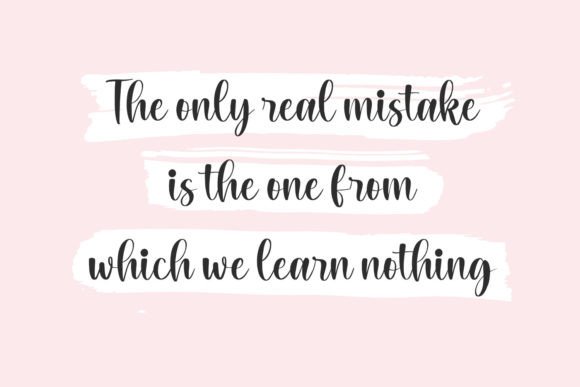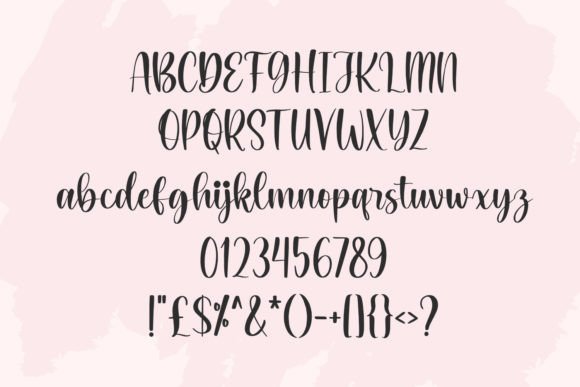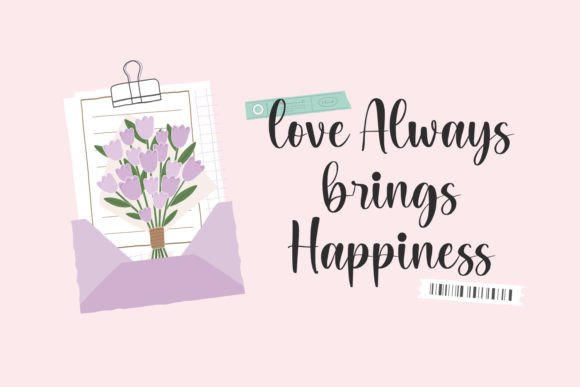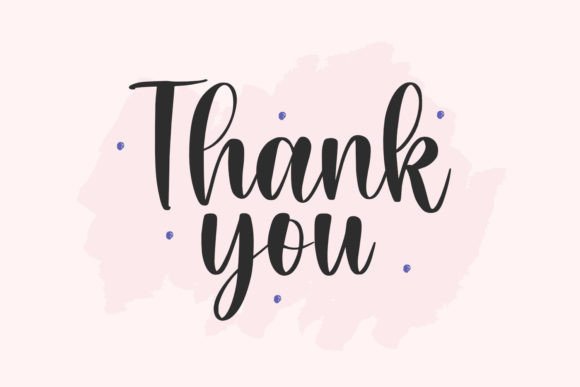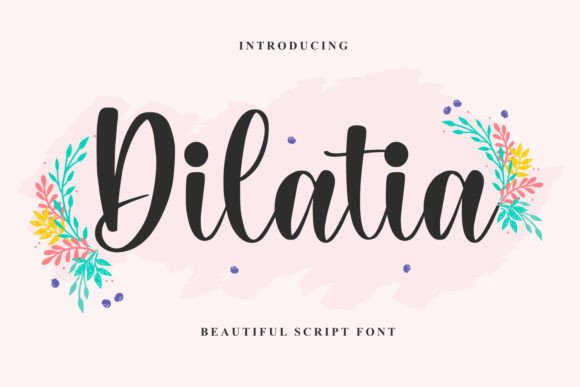
Dilatia Font: Elevate Your Design with Elegance and Sophistication
In the world of typography, fonts play a crucial role in conveying the tone and personality of a brand. For designers and crafters looking for a script that exudes elegance and sophistication, Dilatia Script is an excellent choice. This beautiful font is perfect for marketplace branding or advertising campaigns, thanks to its flowing and dynamic letterforms that create a sense of movement and refinement.
The Characteristics of Dilatia Script
Dilatia Script boasts a modern and stylish feel, making it an excellent addition to any design project. Its clean lines and rounded edges give it a unique and contemporary look that sets it apart from other fonts. The uppercase letters are bold and eye-catching, making them perfect for headings and titles, while the lowercase letters are graceful and delicate, ideal for body text.
Legibility and Versatility
One of the standout features of Dilatia Script is its high level of legibility. Even in smaller sizes, the font remains easy to read, making it a versatile choice for a wide range of design applications. Whether you’re working on a logo, brochure, or website, Dilatia Script is a reliable choice that will ensure your message is conveyed clearly and effectively.
Perfect for Marketplace Branding and Advertising
Marketplace branding and advertising require a font that is not only visually appealing but also communicates a sense of sophistication and elegance. Dilatia Script ticks all the boxes, making it an excellent choice for designers and crafters looking to create a professional and polished look. Its flowing letterforms and dynamic feel make it perfect for capturing the attention of potential customers and setting your brand apart from the competition.
Why Choose Dilatia Script?
So, why should you choose Dilatia Script for your design project? Here are just a few reasons:
- Elegance and sophistication: Dilatia Script exudes refinement and poise, making it perfect for high-end branding and advertising campaigns.
- Modern and stylish feel: The font’s clean lines and rounded edges give it a contemporary look that will appeal to designers and crafters.
- High legibility: Dilatia Script remains easy to read even in smaller sizes, making it a versatile choice for a wide range of design applications.
- Bold and eye-catching uppercase letters: The uppercase letters are perfect for headings and titles, adding a touch of drama and flair to your design.
- Graceful and delicate lowercase letters: The lowercase letters are ideal for body text, providing a smooth and flowing feel that is easy on the eyes.
Tips for Using Dilatia Script
To get the most out of Dilatia Script, here are a few tips to keep in mind:
- Use it for headlines and titles: The bold and eye-catching uppercase letters make Dilatia Script perfect for headlines and titles.
- Pair it with a sans-serif font: Pairing Dilatia Script with a sans-serif font can create a striking contrast that adds visual interest to your design.
- Experiment with different sizes: Dilatia Script remains legible even in smaller sizes, so don’t be afraid to experiment with different sizes to create visual hierarchy.
In conclusion, Dilatia Script is a beautiful and elegant font that is perfect for designers and crafters looking to add a touch of sophistication and refinement to their design projects. Its flowing and dynamic letterforms, modern and stylish feel, and high level of legibility make it an excellent choice for marketplace branding and advertising campaigns. Whether you’re working on a logo, brochure, or website, Dilatia Script is a versatile and reliable choice that is sure to elevate your design.